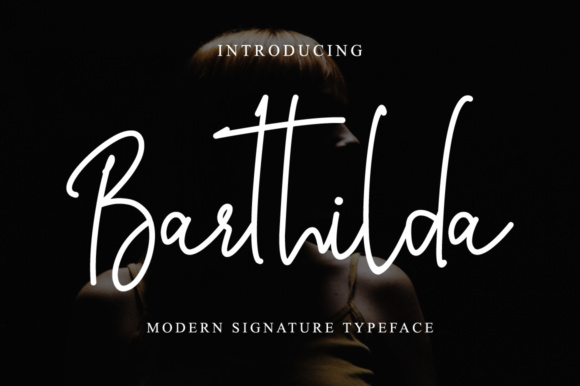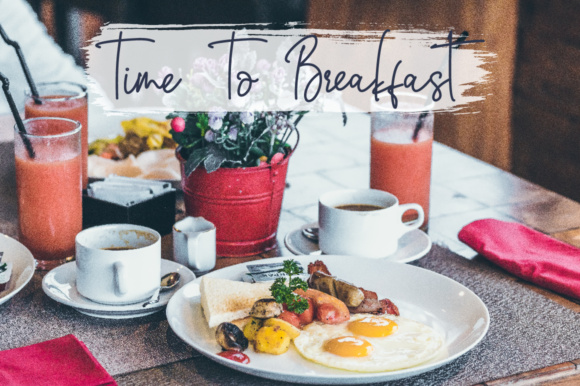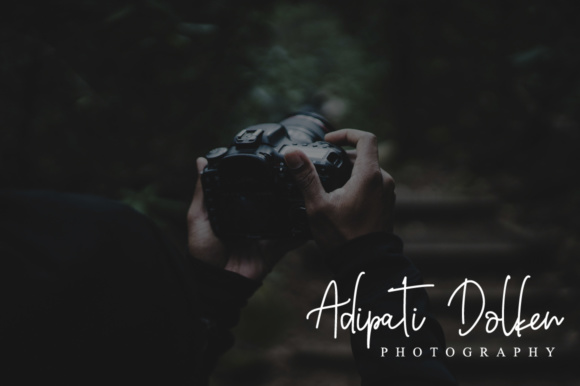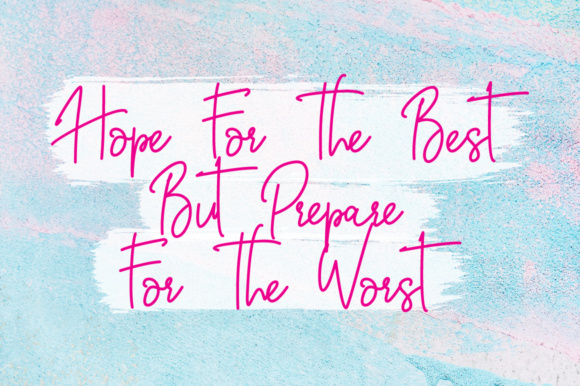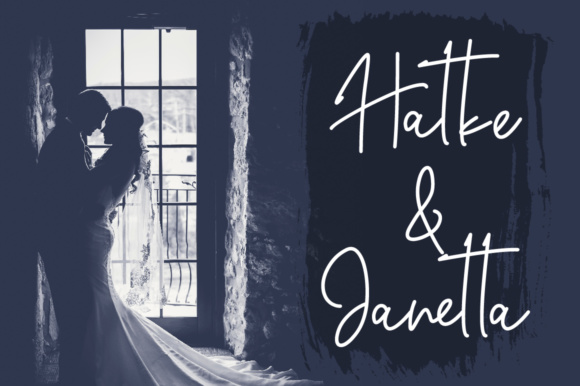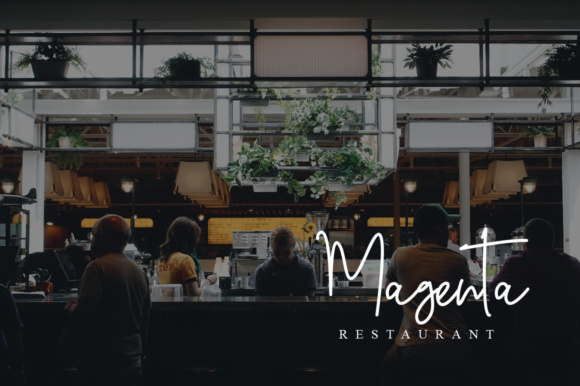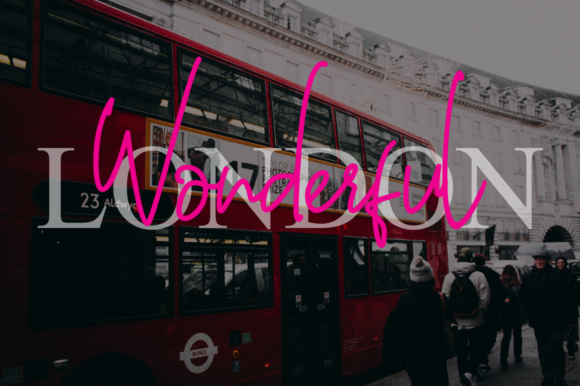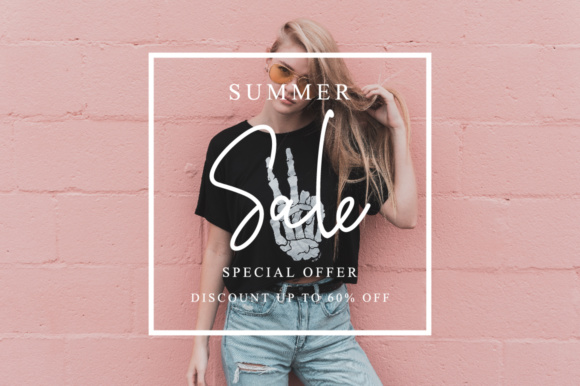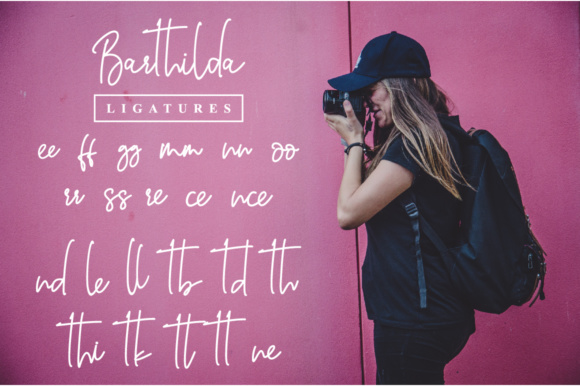
Barthilda Font
About Barthilda Font
The Barthilda is a stylish handwritten typeface with a signature style. This beautiful script font gives a personal touch to your latest art project with an elegant, classy and modern look.